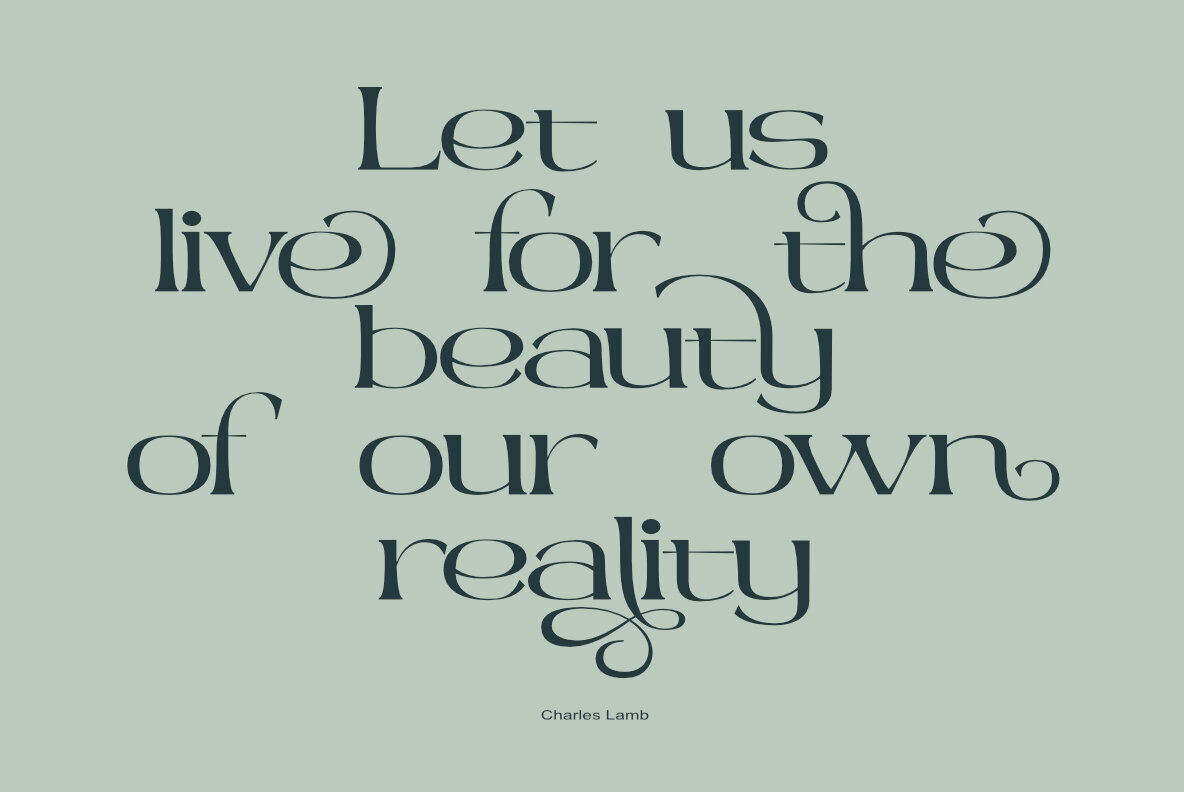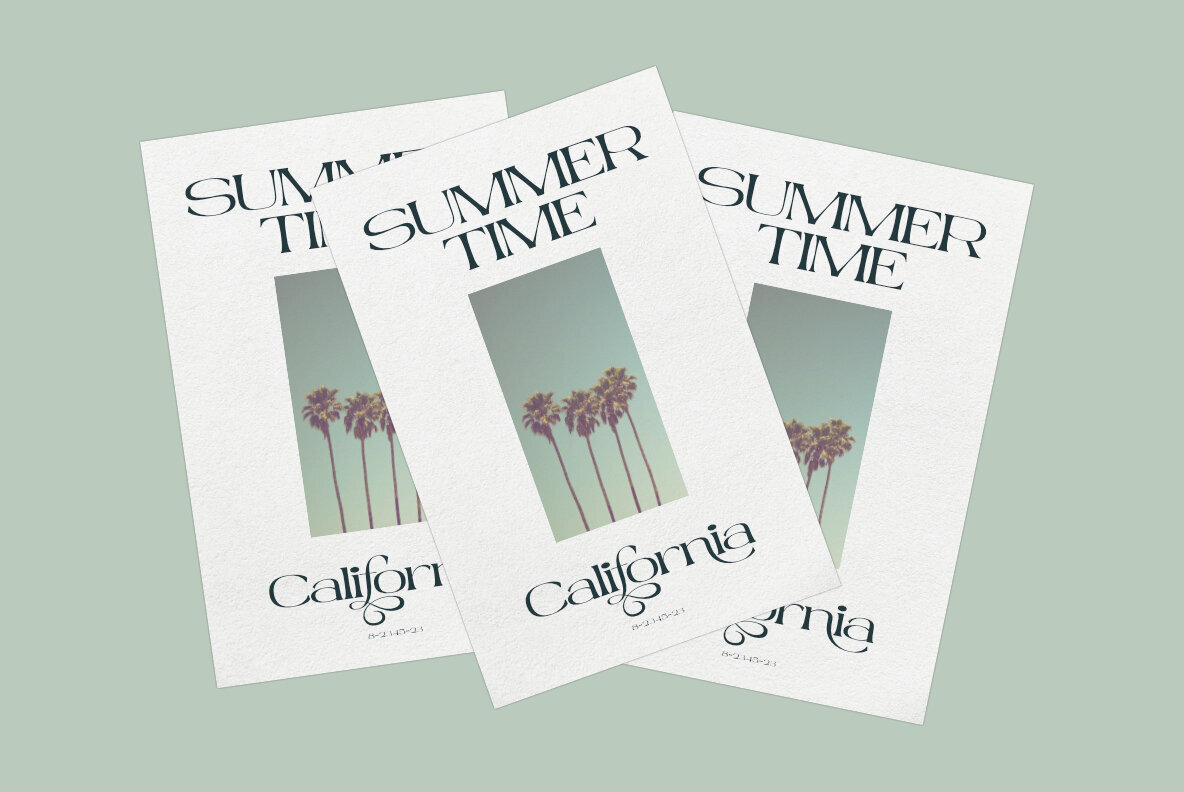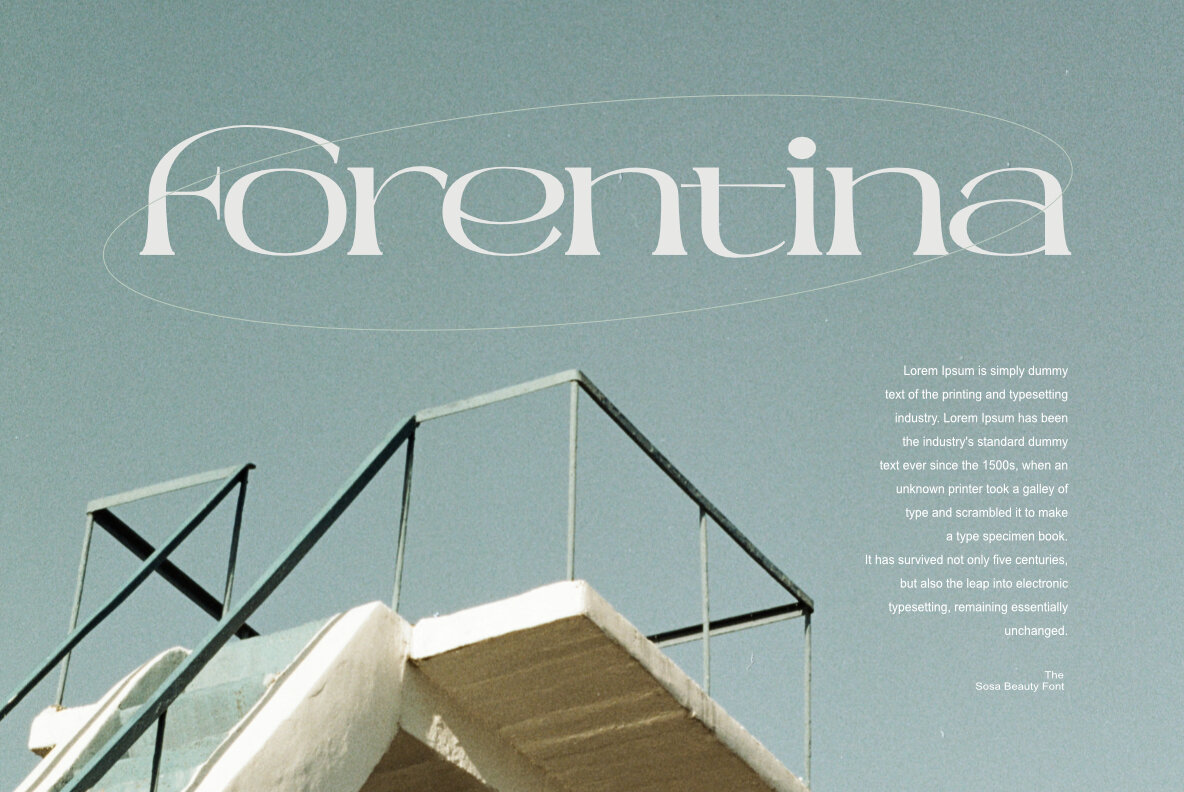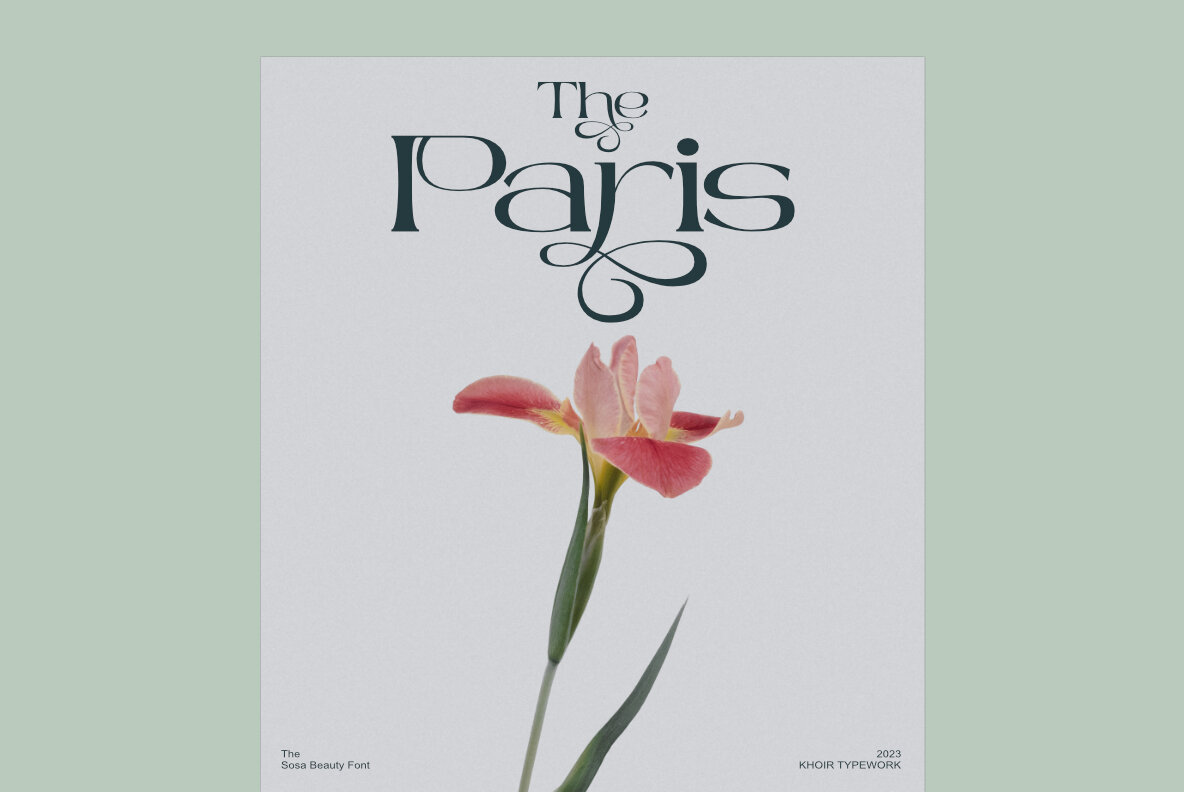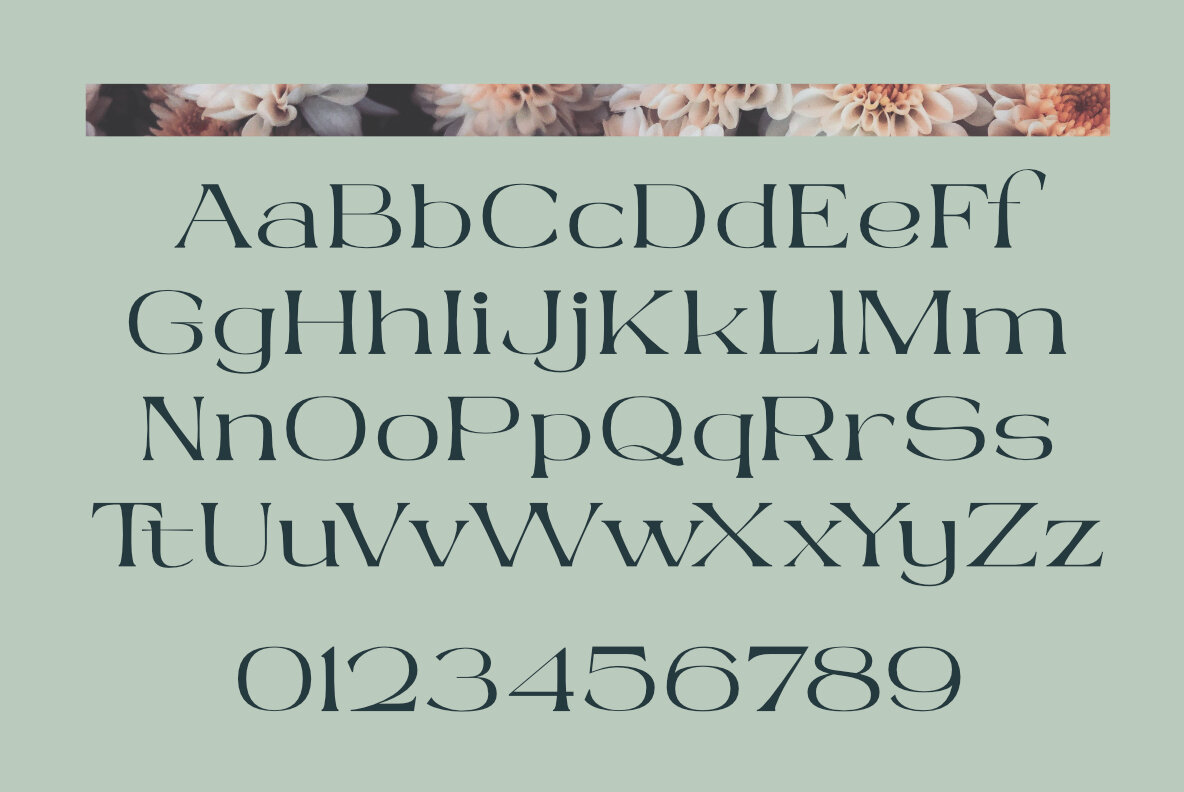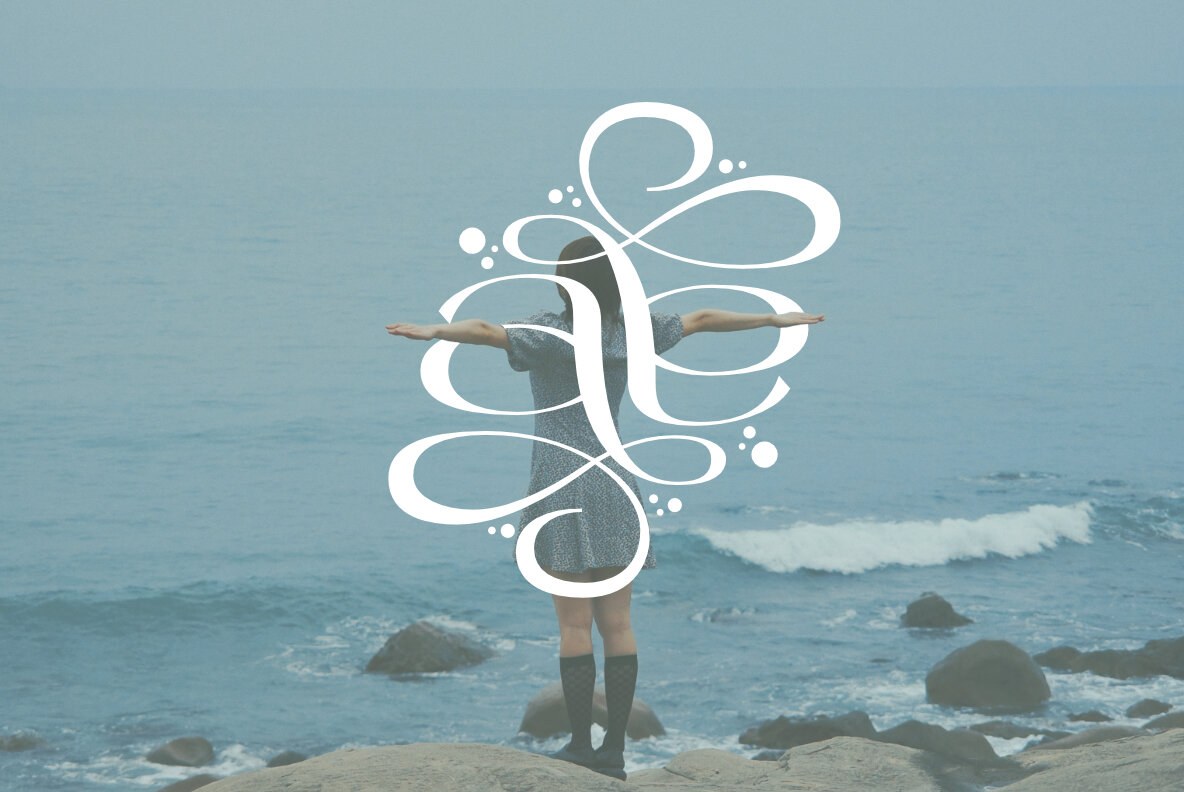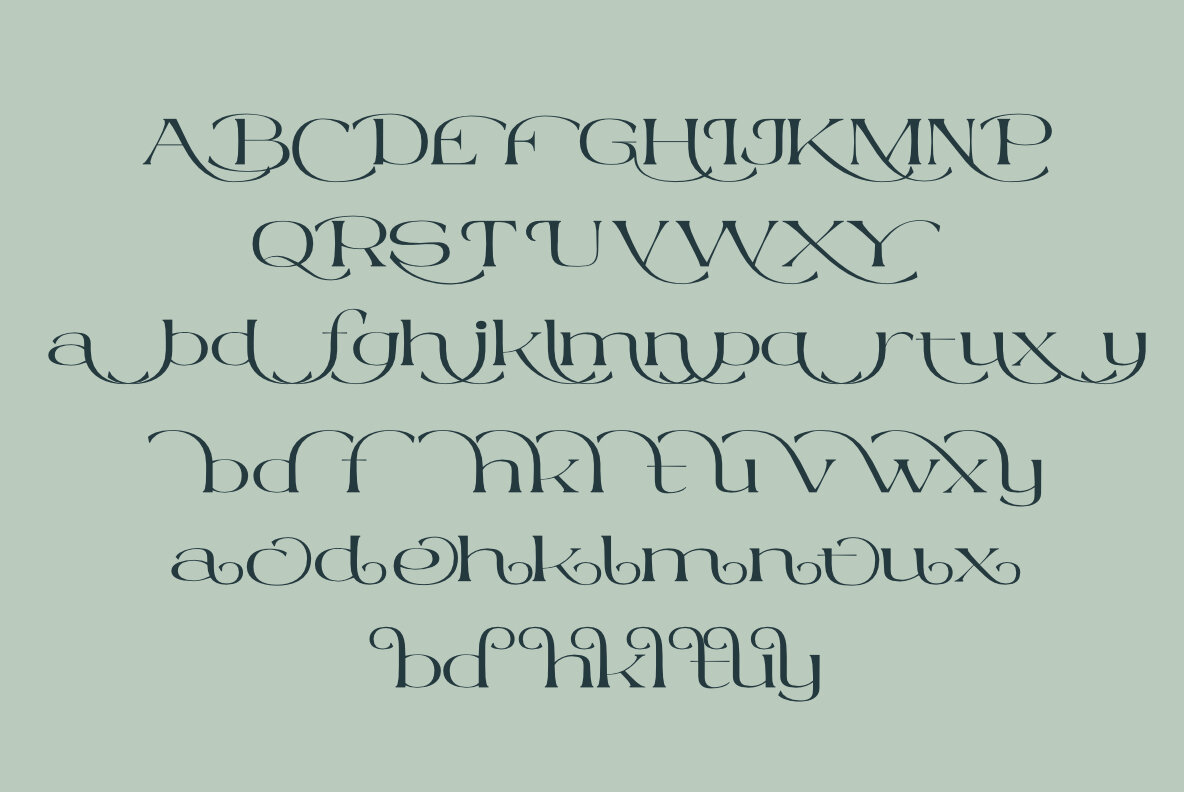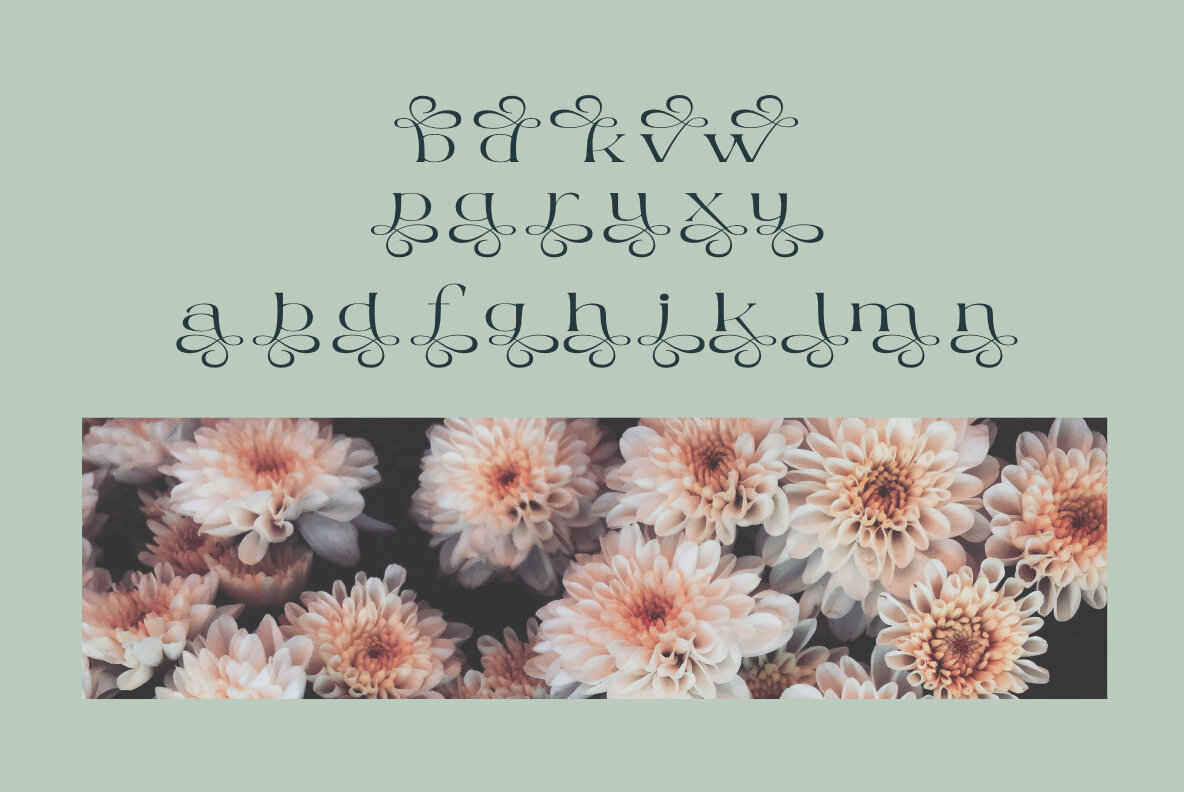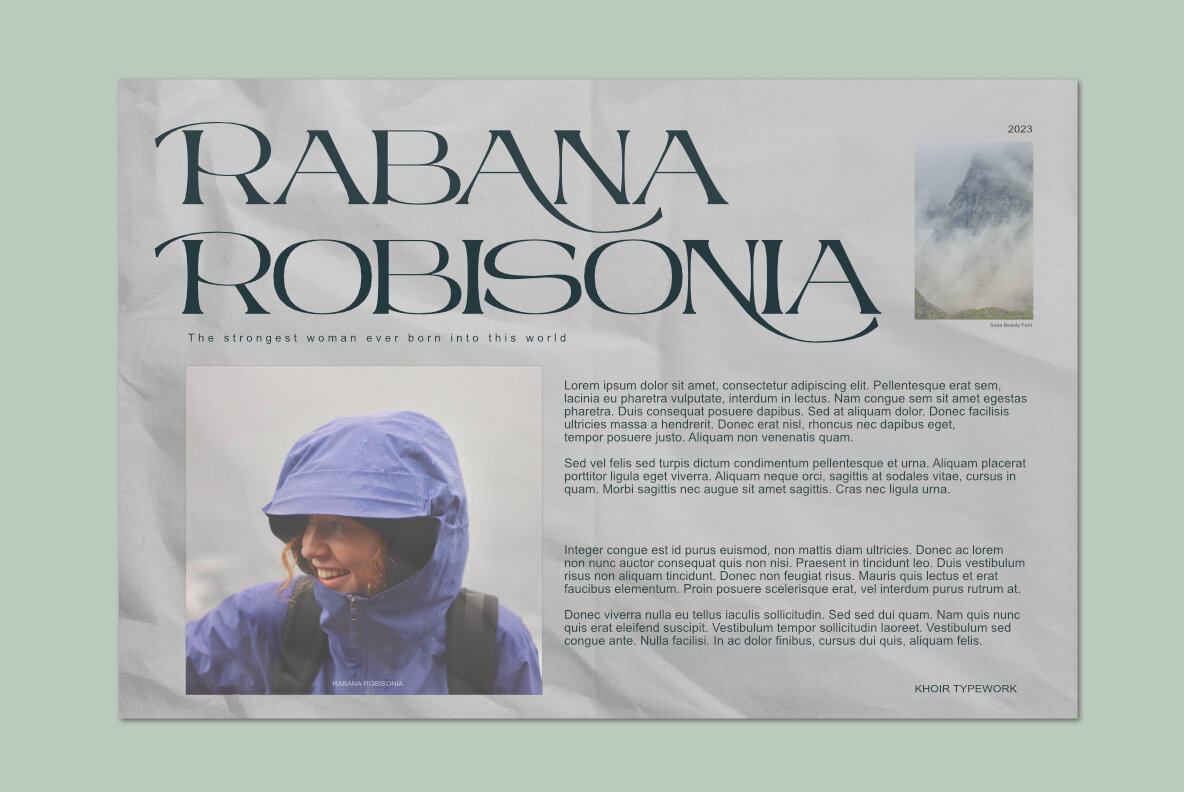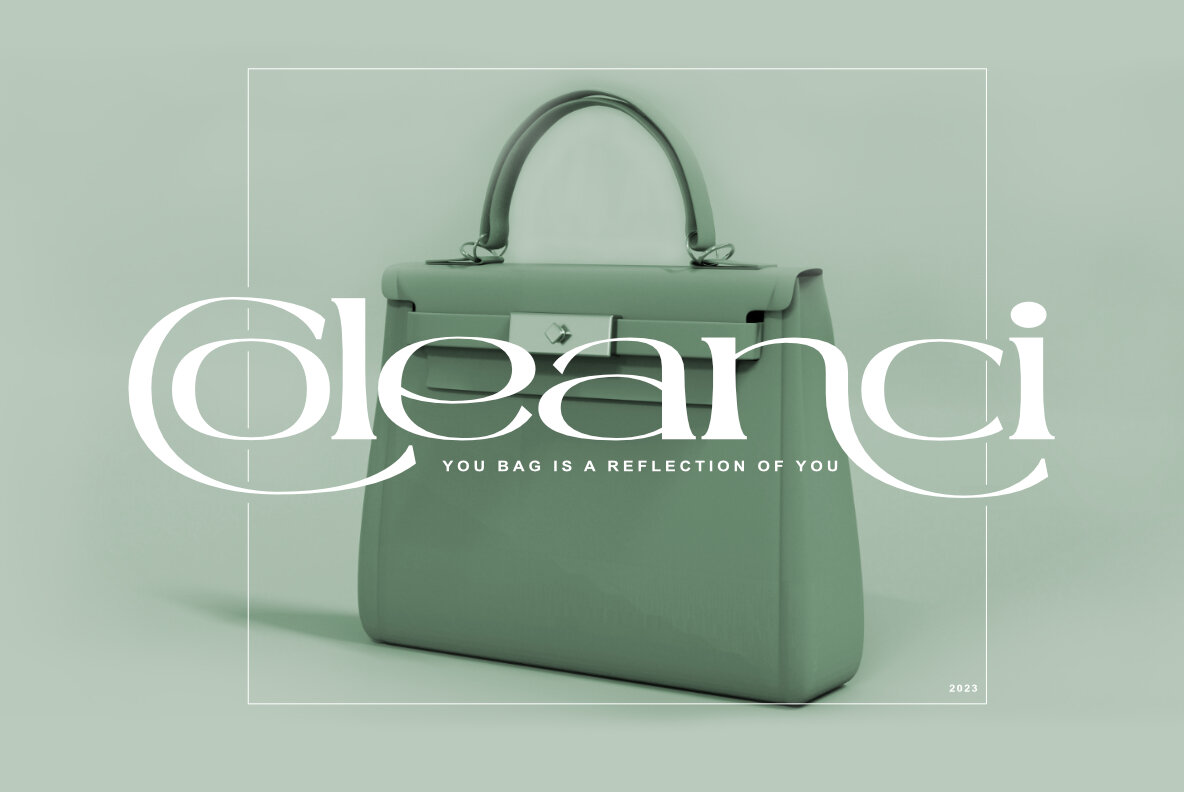
Sosa Font
The Sosa serif is a classic, elegant font with harmonious thin and bold displays, with exclusive alternatives in each letter and has a unique terminal alternate style making this font the perfect unit for your projects, for poster design, logo design, branding, mercendaise, fashion, clothes and much more. What's included?